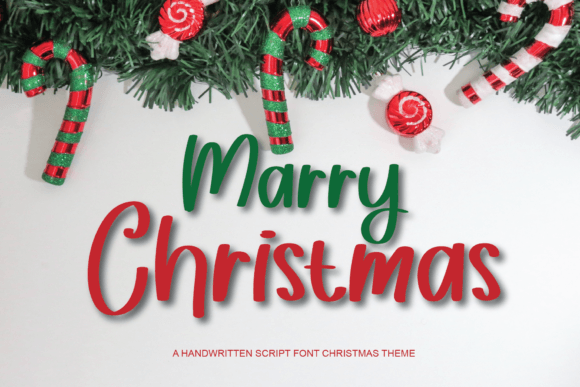
Journey into the realm of Marry Christmas, a captivating script font that evokes the spirit of holiday cheer and joyous celebrations. This enchanting creation by hl_studio is a visual masterpiece, meticulously crafted to bring a touch of festive magic to your creative projects.
With its graceful curves and playful strokes, Marry Christmas dances across the page like a melody, adding a touch of whimsy and charm to any design. Whether you're crafting heartwarming greeting cards, designing eye-catching business cards, or creating cheerful product packaging, this font is your ultimate companion. Its versatility knows no bounds, making it perfect for logos, advertisements, and even heartfelt quotes.
Imagine the delight of your customers as they receive a greeting card adorned with Marry Christmas's joyful strokes, spreading warmth and cheer with every word. Picture the sophistication of a business card that bears this font, exuding professionalism and creativity in equal measure. And envision the allure of product packaging that speaks volumes through Marry Christmas's playful charm, inviting customers to discover the wonders within.
Marry Christmas is the perfect font for adding a touch of holiday spirit to any design. Its carefully crafted script is bursting with personality and warmth, making it the perfect choice for creating designs that are sure to capture attention and spread joy.
So, embrace the magic of Marry Christmas and let its festive aura transform your creative projects into works of art. Let this font be your guide as you craft designs that resonate with your audience, leaving them enchanted and eager for more. Embrace the spirit of the season and let Marry Christmas be the shining star in your design arsenal.